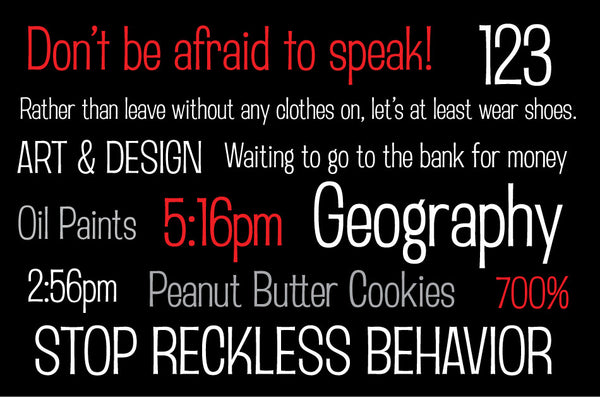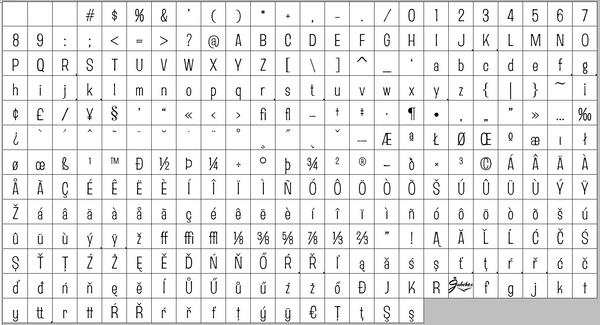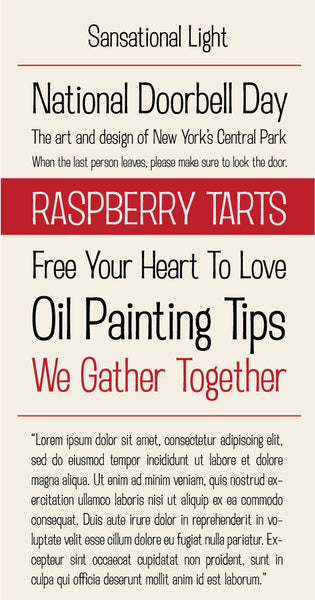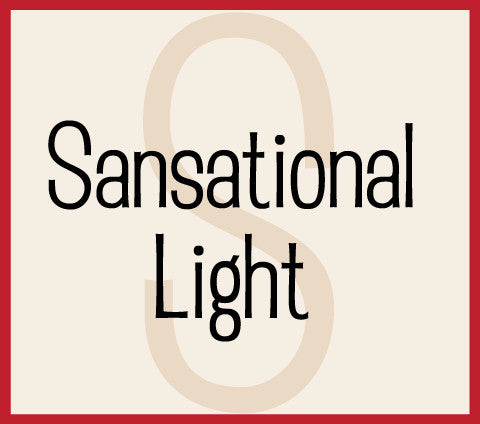
Sansational Light
Sansational is a sans serif font family I designed to help round out the Jukebox library with something that can be used both for text and display. The typeface is designed in the tradition of the sans serif typefaces popular in the era of photo-typositing. A great workhorse sans serif family, Sansational is versatile and attractive. Sansational Regular